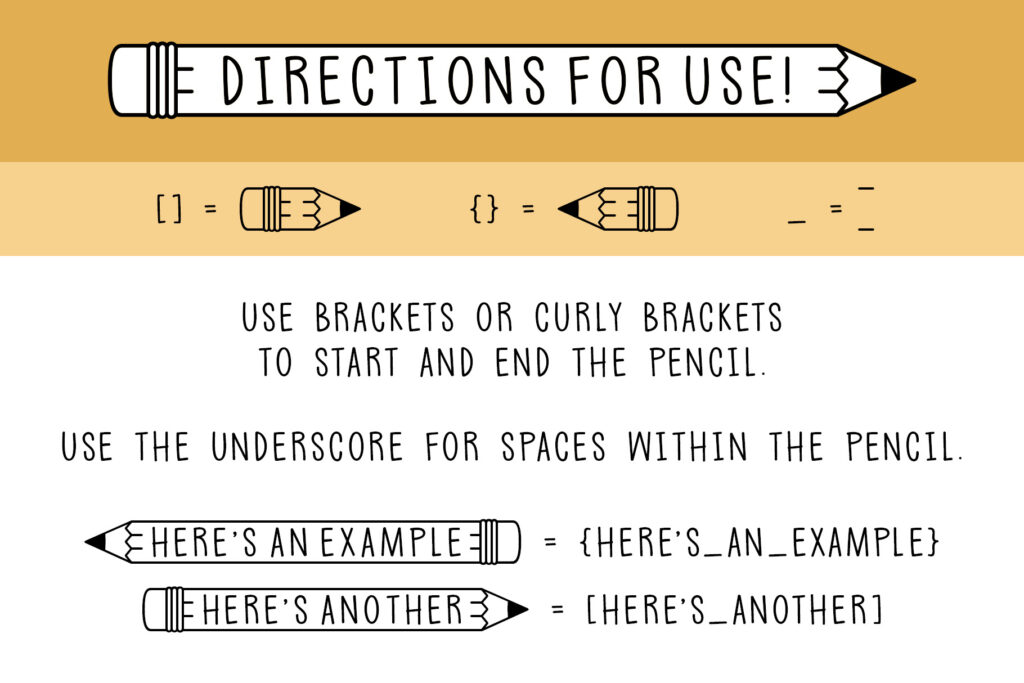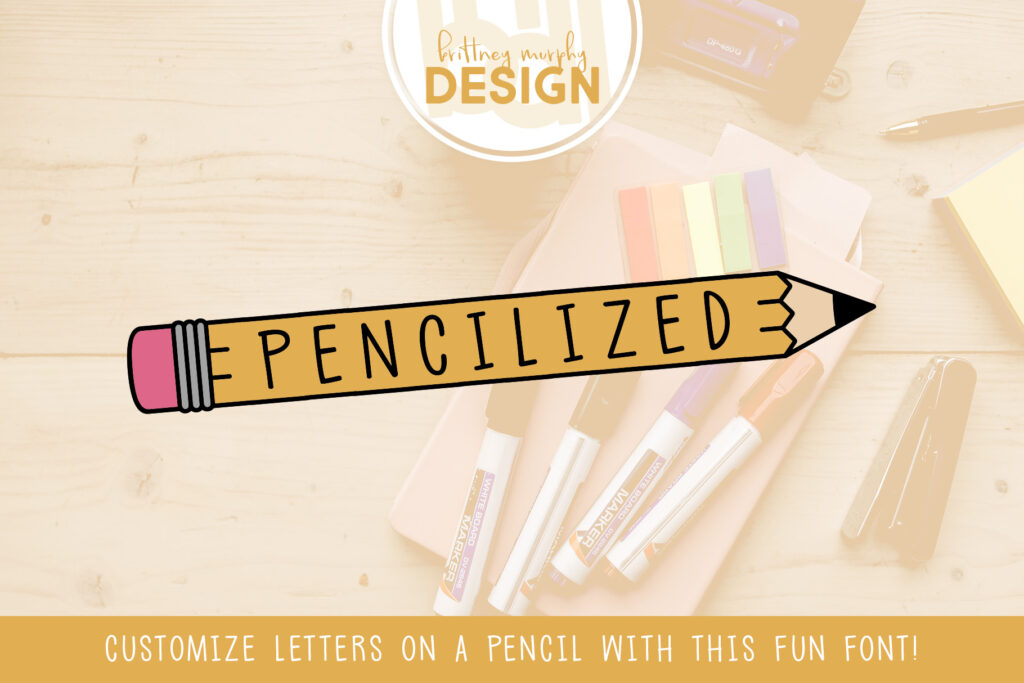
Pencilized
The Pencilized Font is a fun way to add words or names to pencils. Just use brackets [] or curly brackets {} to start and end the pencil and the underscore _ for any spaces between words on the pencil. Great for classroom decor or making student nameplates! This font contains just the standard alphabet and basic punctuation.